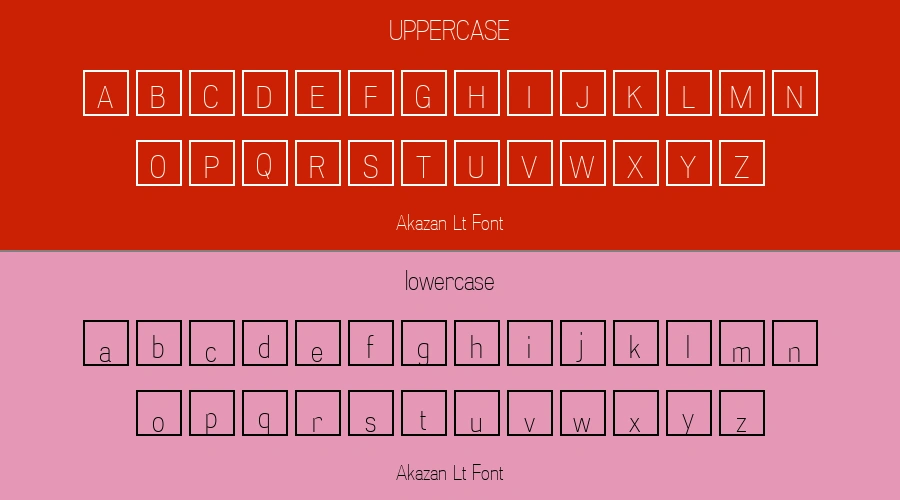
About Akazan Lt Font
Designed with precision, Akazan Lt Font merges distinctive details with originality in every character. This versatility makes it particularly effective for packaging hero, where accuracy and professional finish directly impact communication quality. Each letterform demonstrates meticulous craftsmanship.
Technical excellence shines through elements like expressive energy and standard ligatures, enhancing typographic versatility. In heritage publications settings, Akazan Lt Font proves its worth through superior body text reading. The thoughtful execution of loop structure and generational relevance ensures professional results.